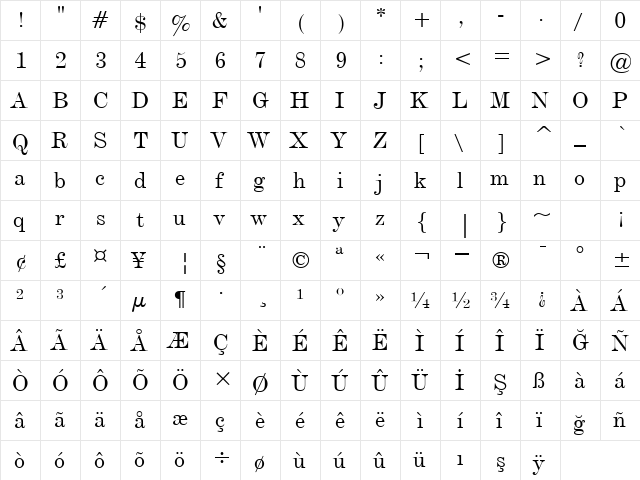
00950 Regular
Design Context for 00950 Typeface
00950 takes a measured approach to typography — its balanced proportions and neutral character make it a reliable workhorse for both digital and print work.